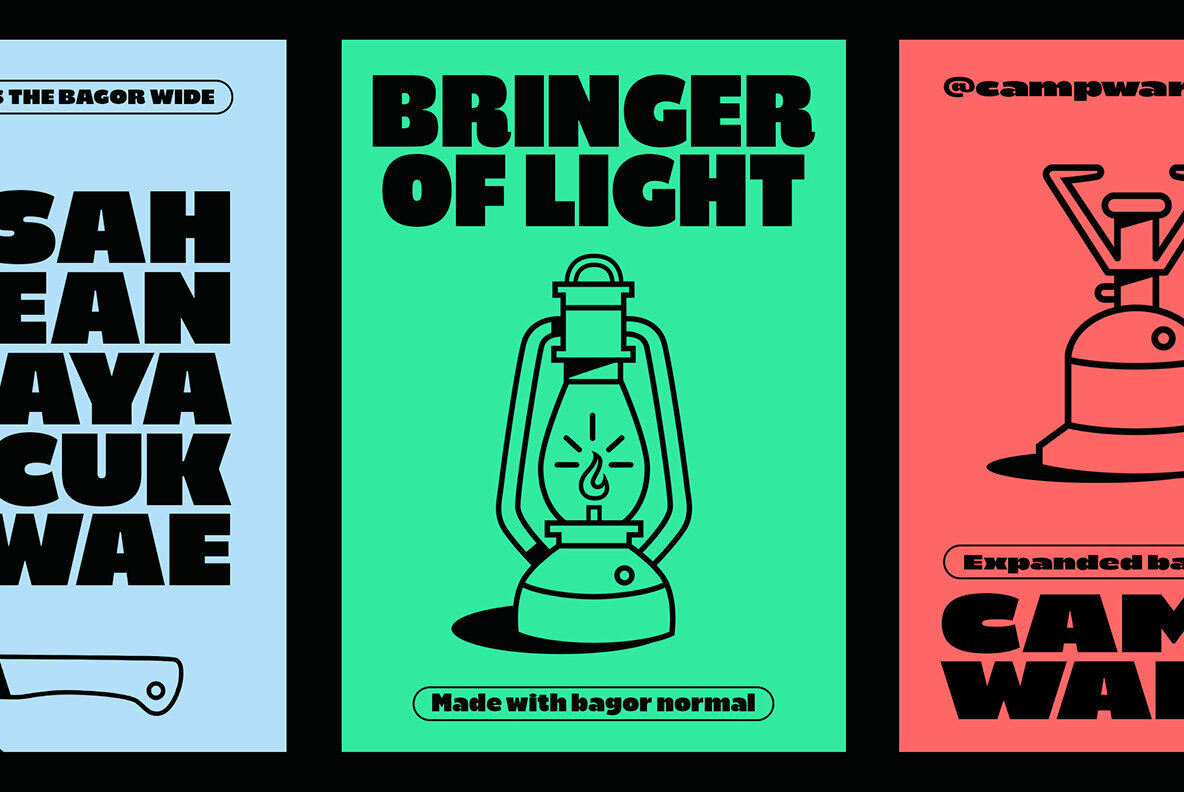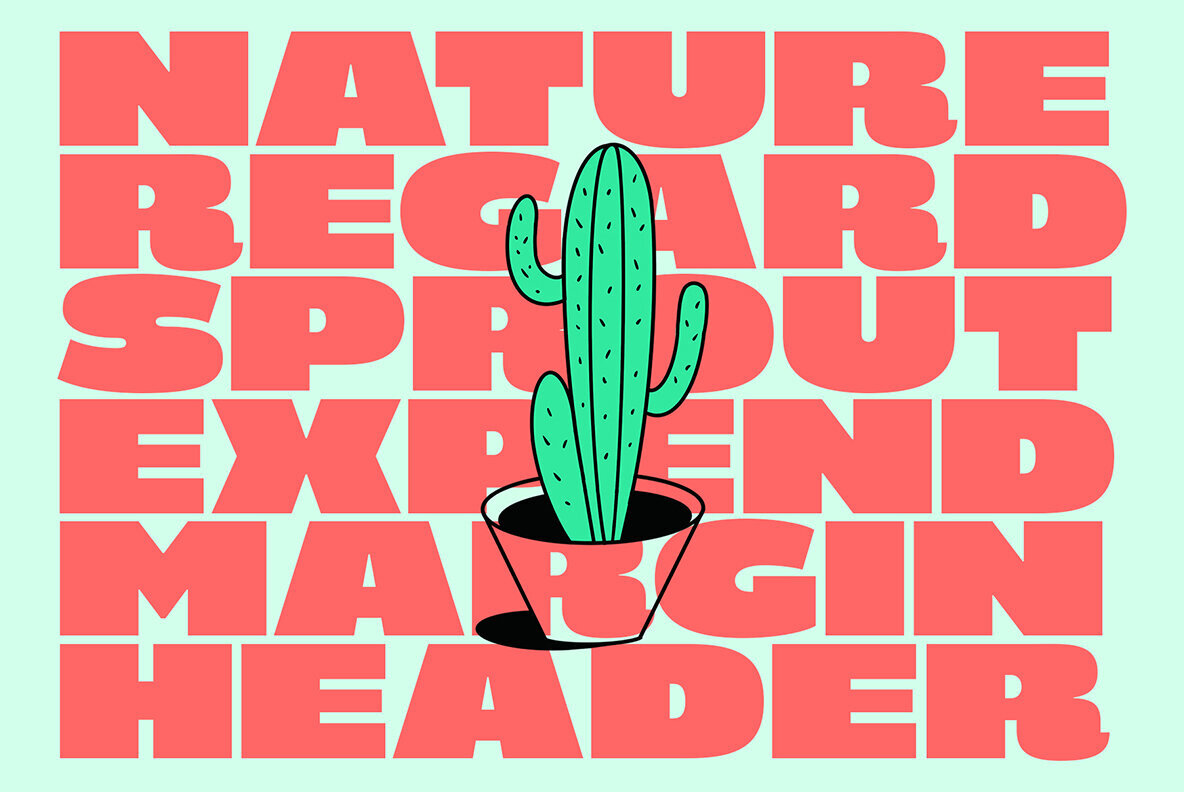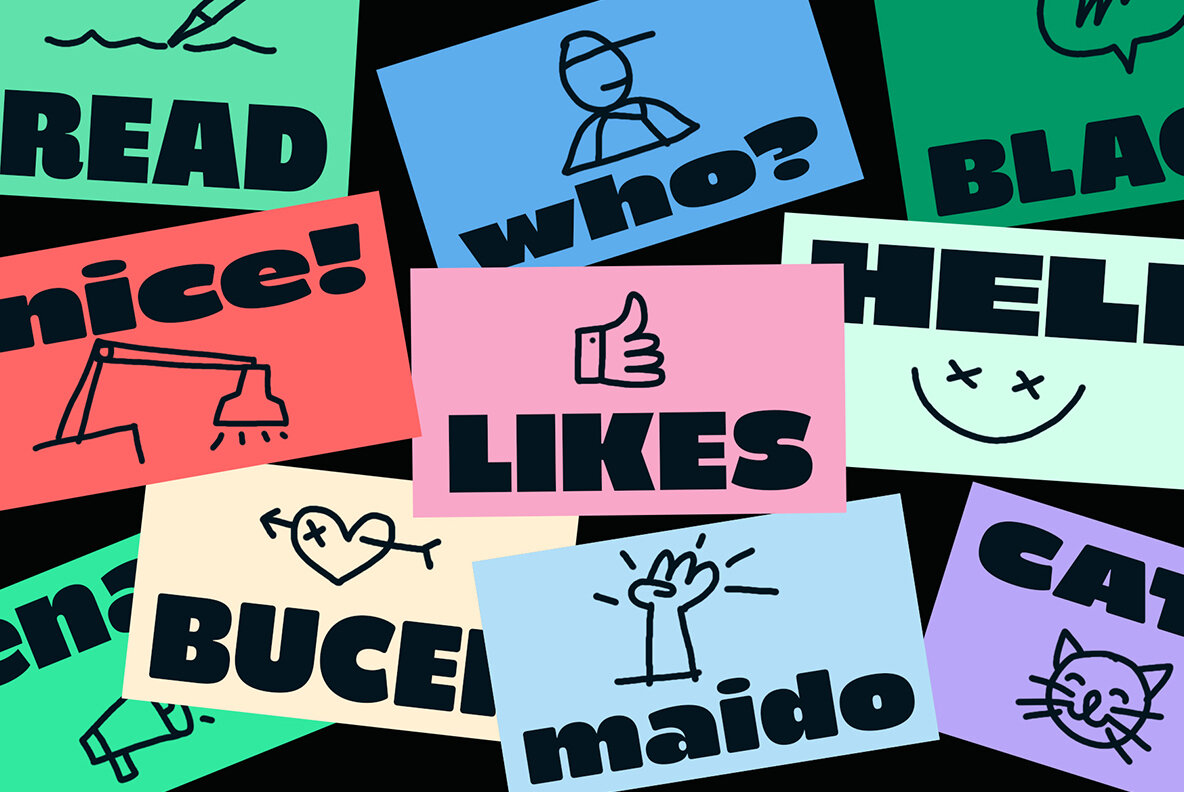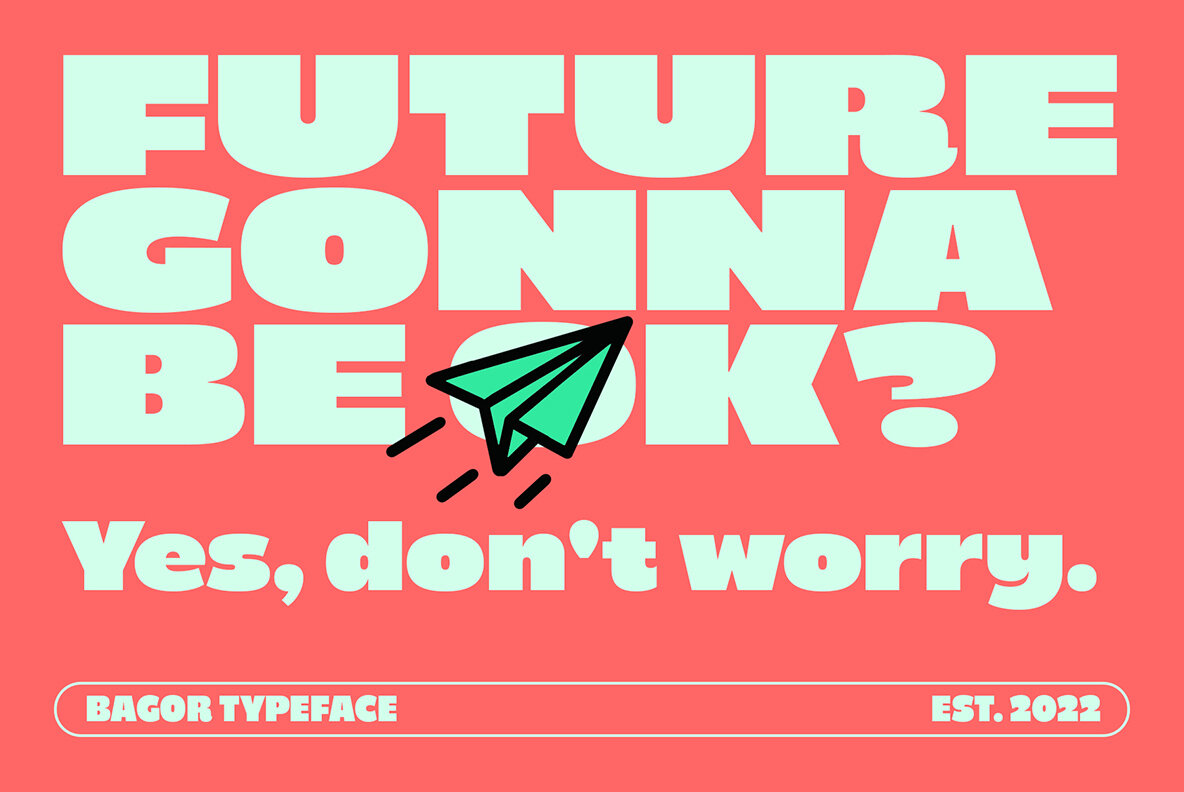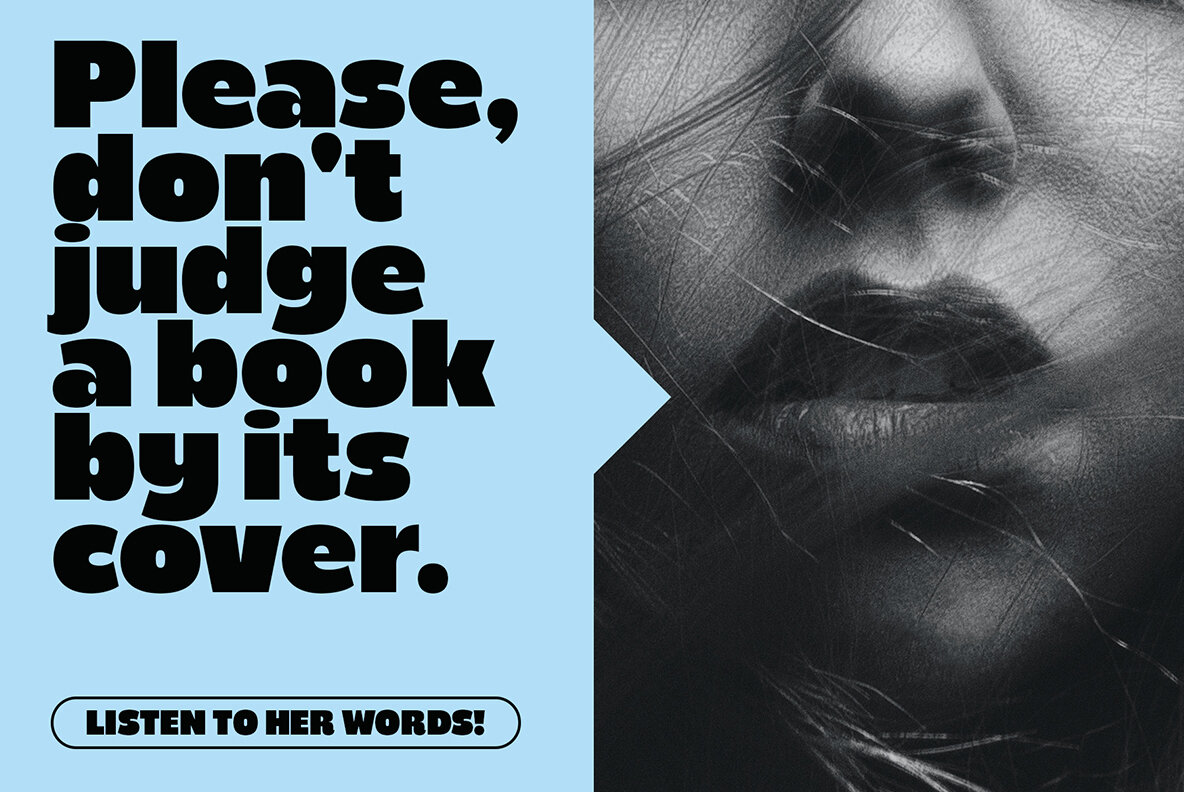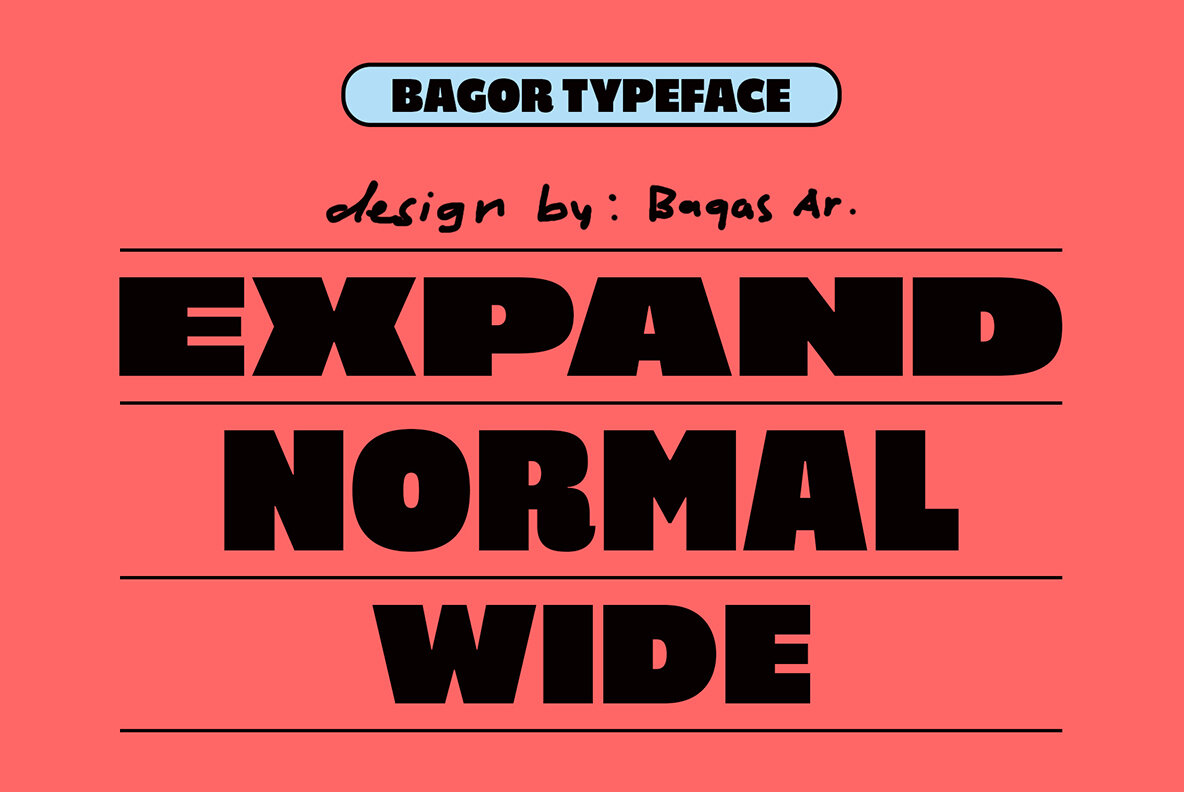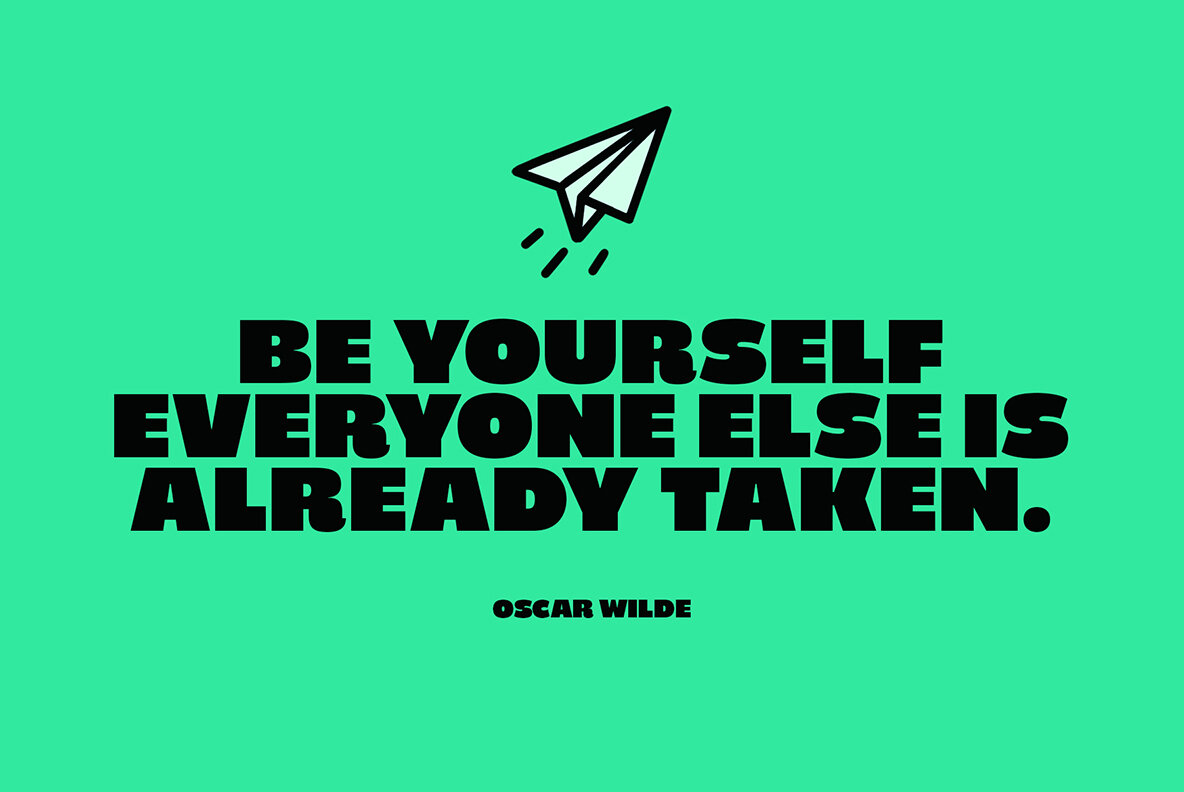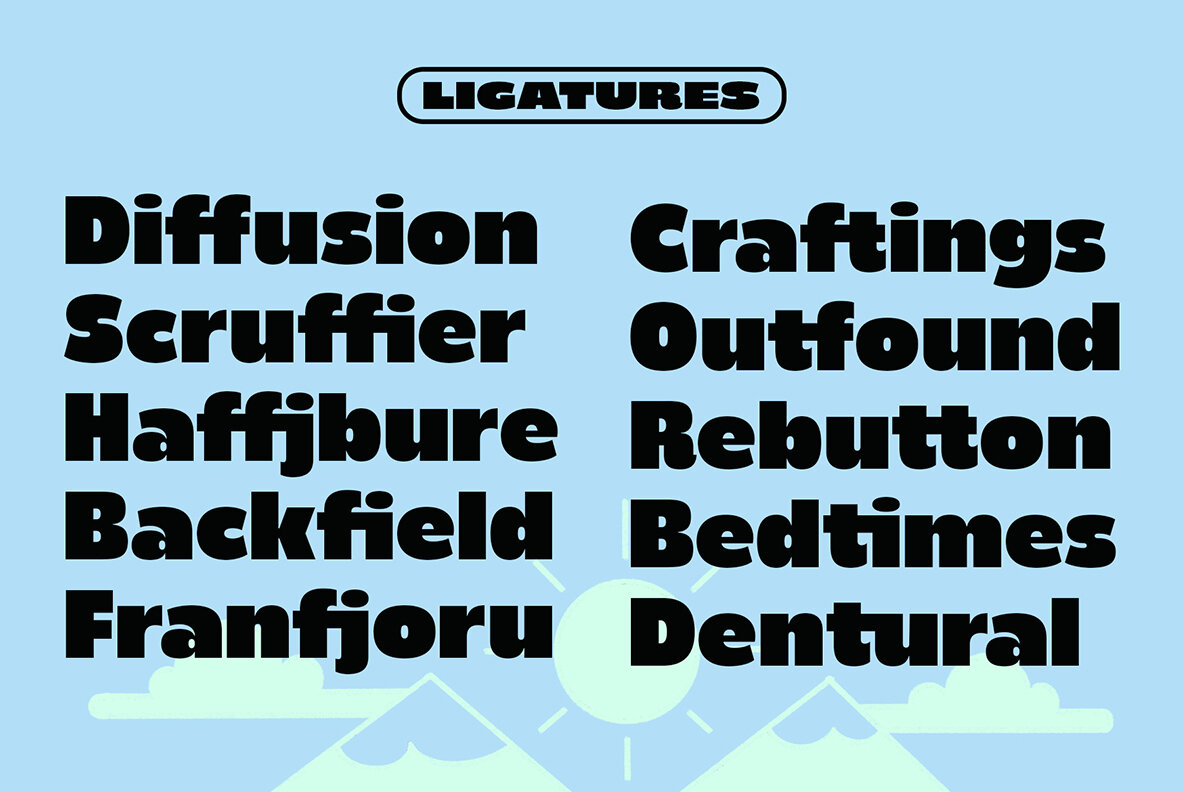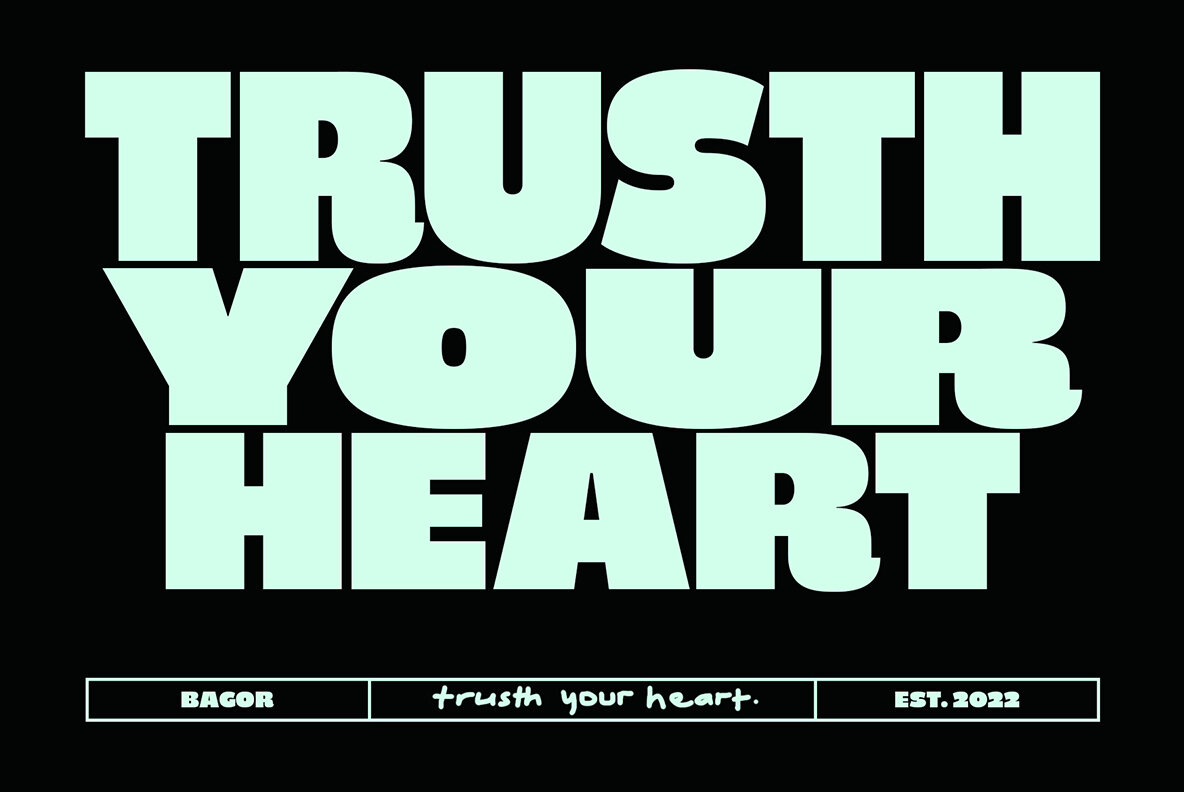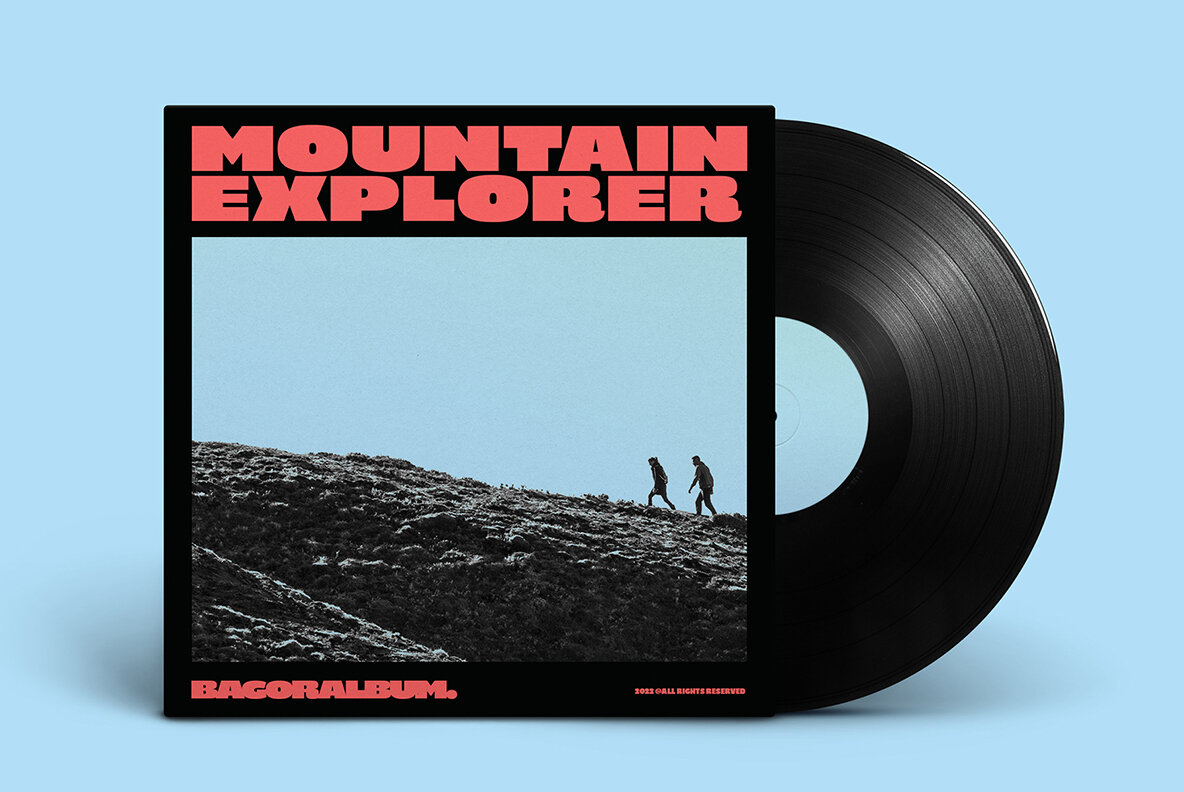
Bagor Font
Bagor is a sans-serif typeface with a heavy touch. The concept is a big x-height and small ascender. Comes with 3 widths, namely: normal, wide, and expanded. And also a round version, making it 6 styles. Bagor is perfect for branding, titling, headline, and more.